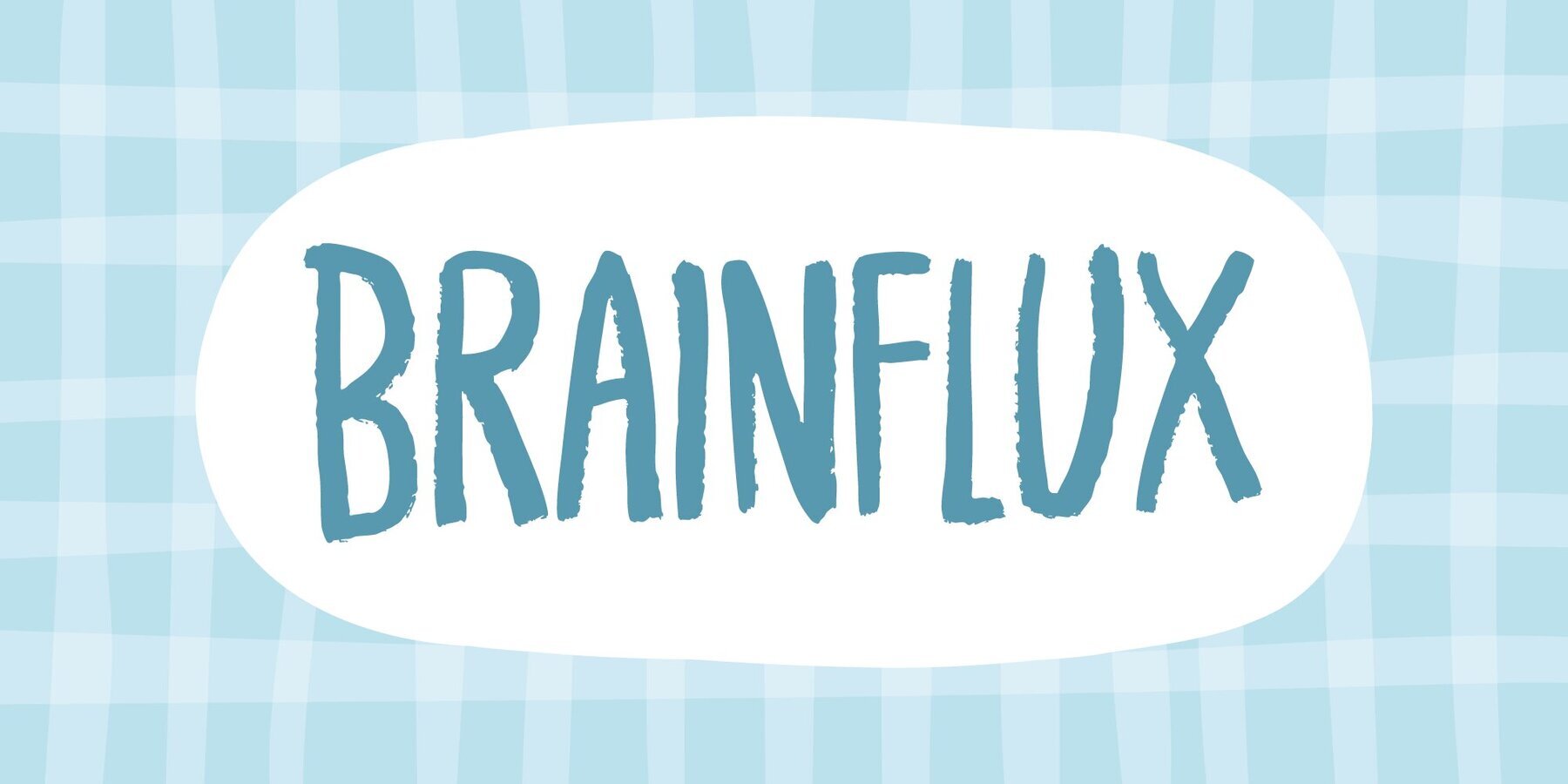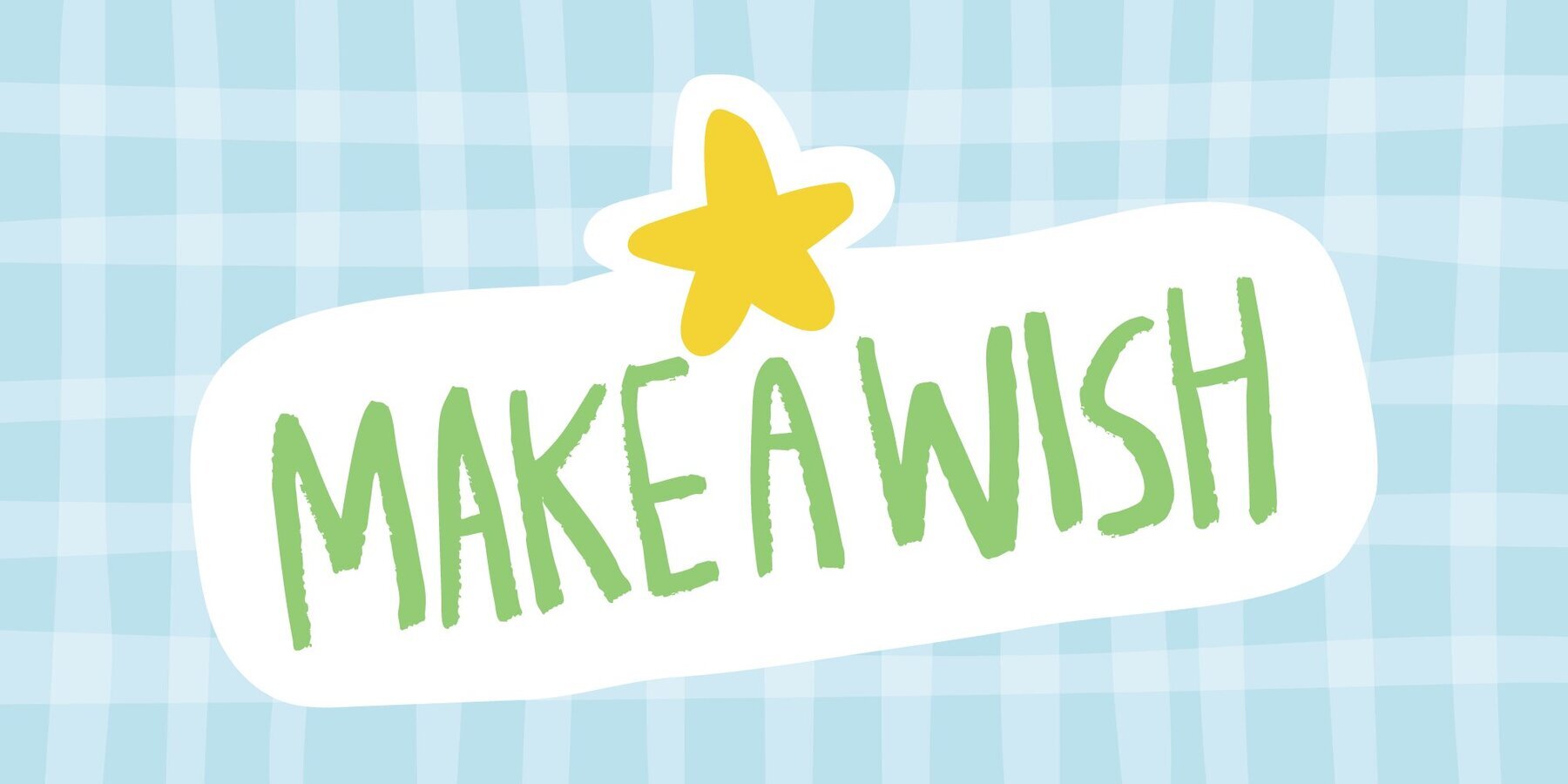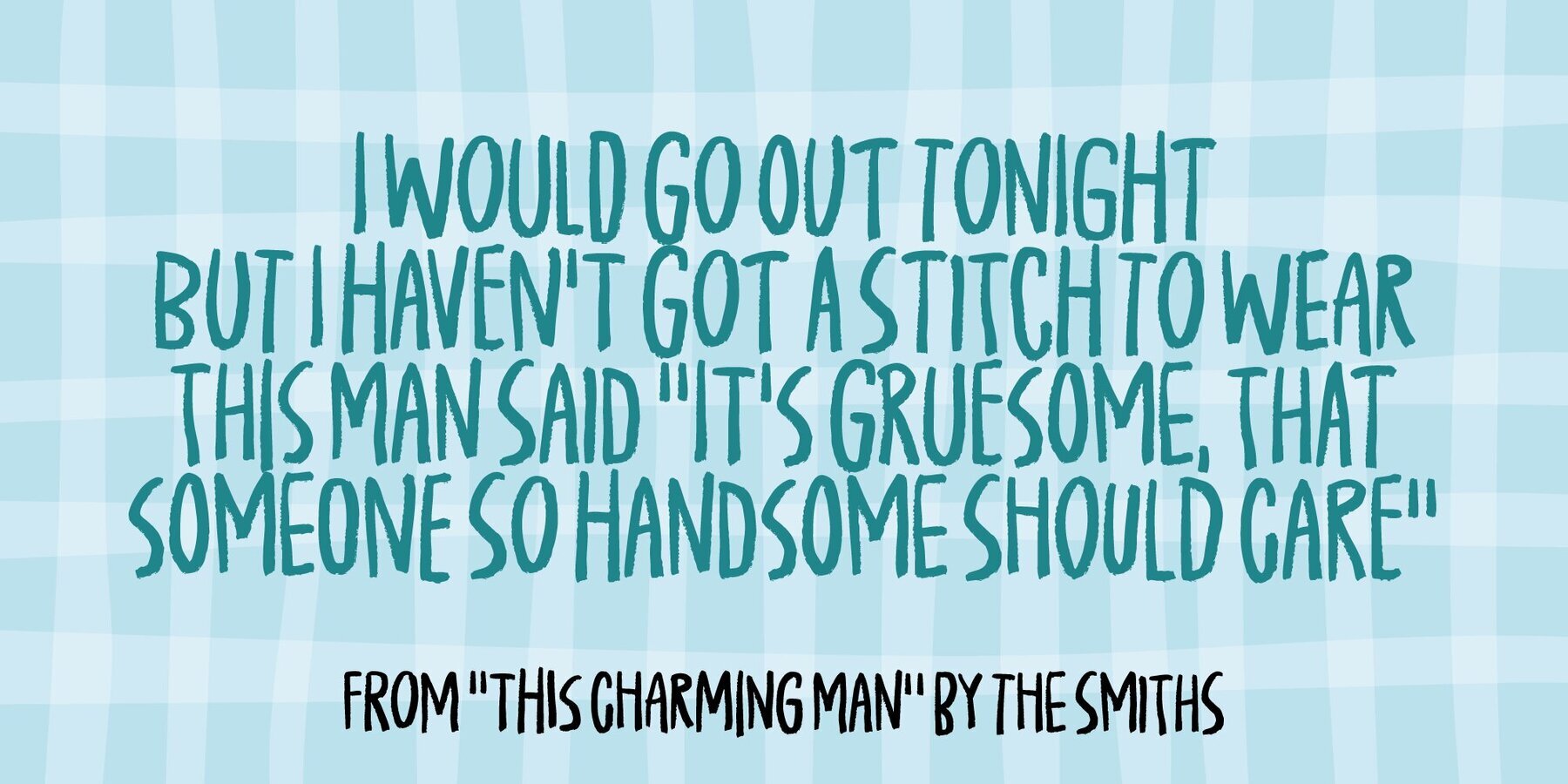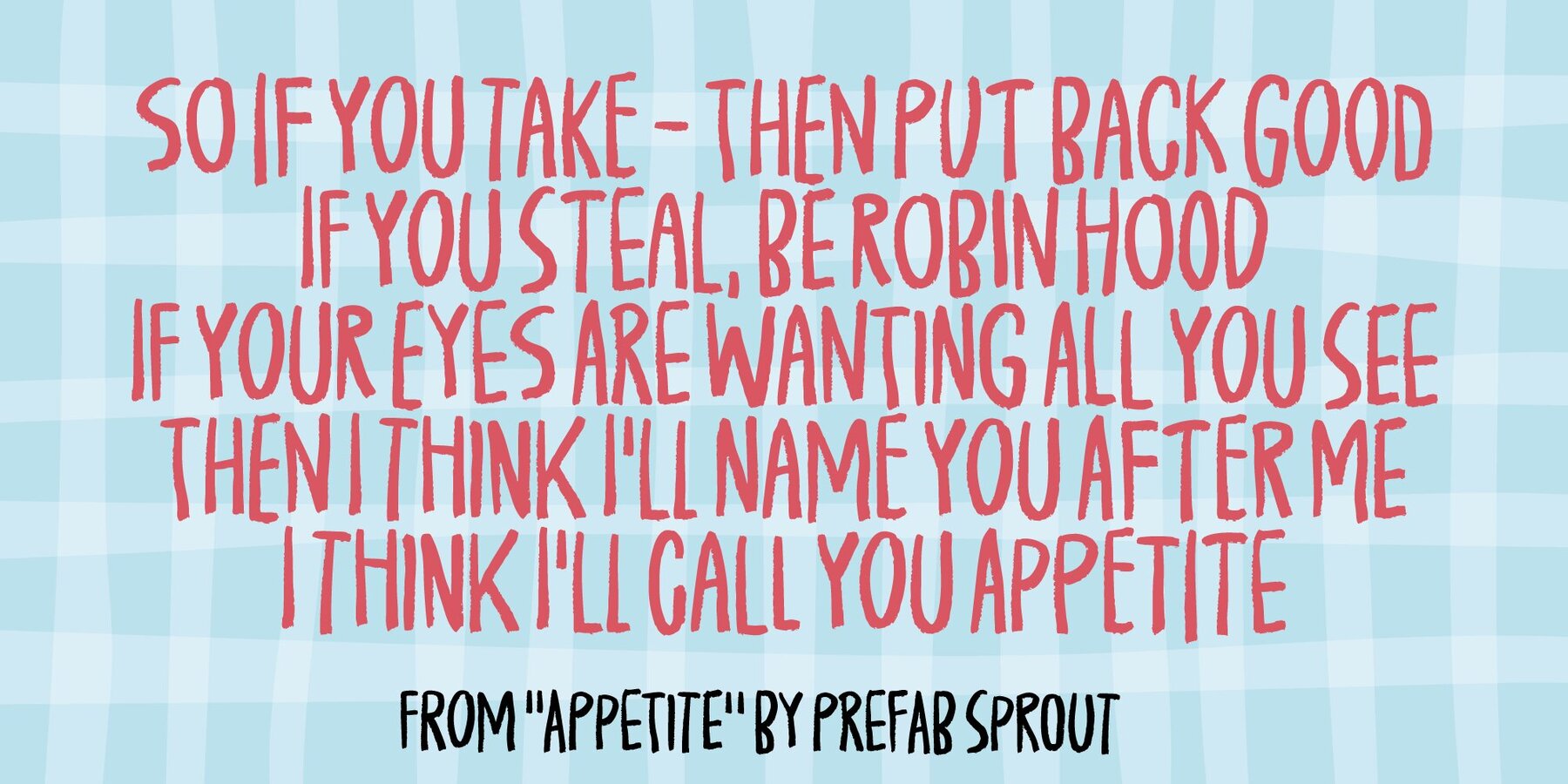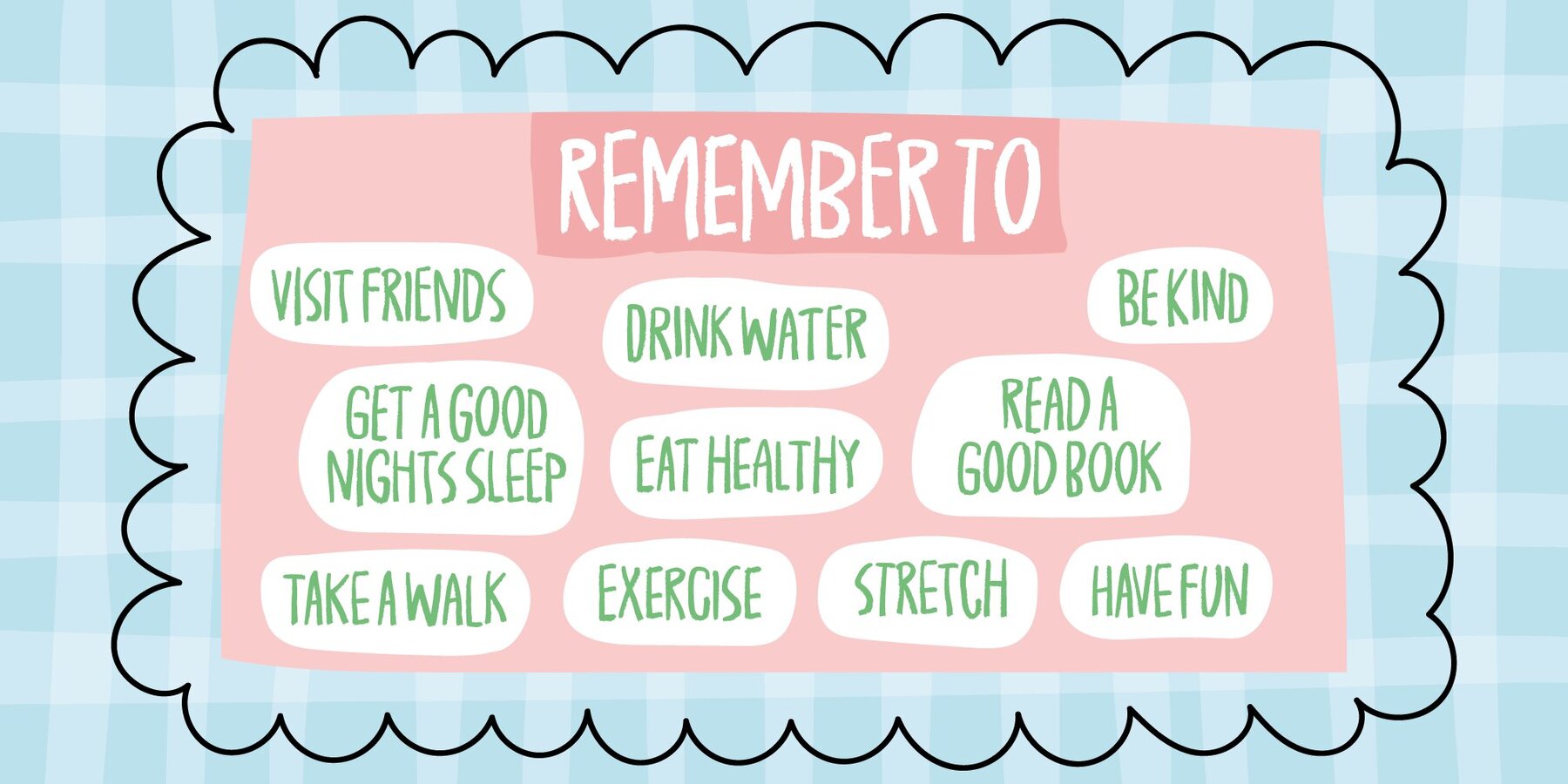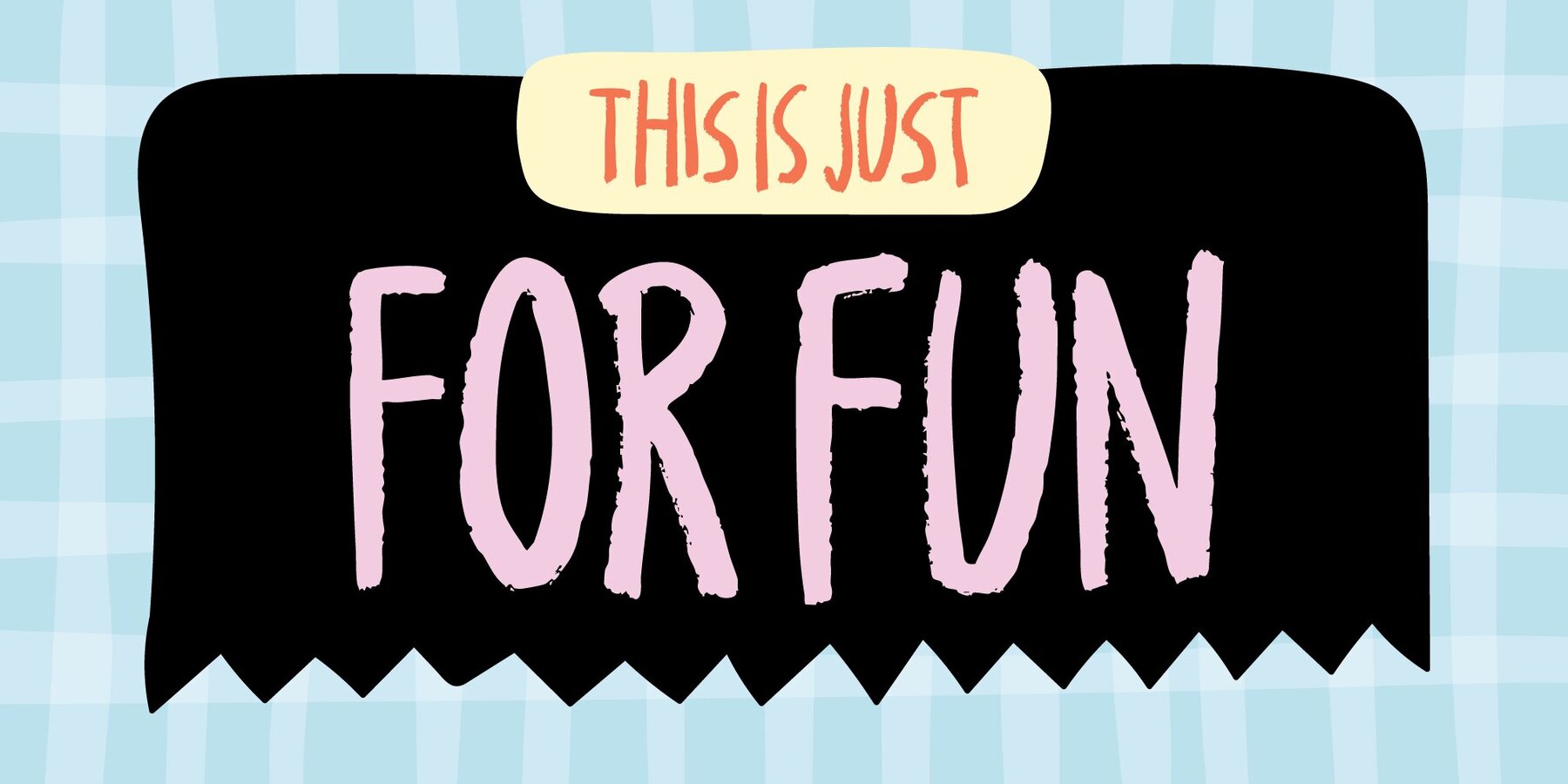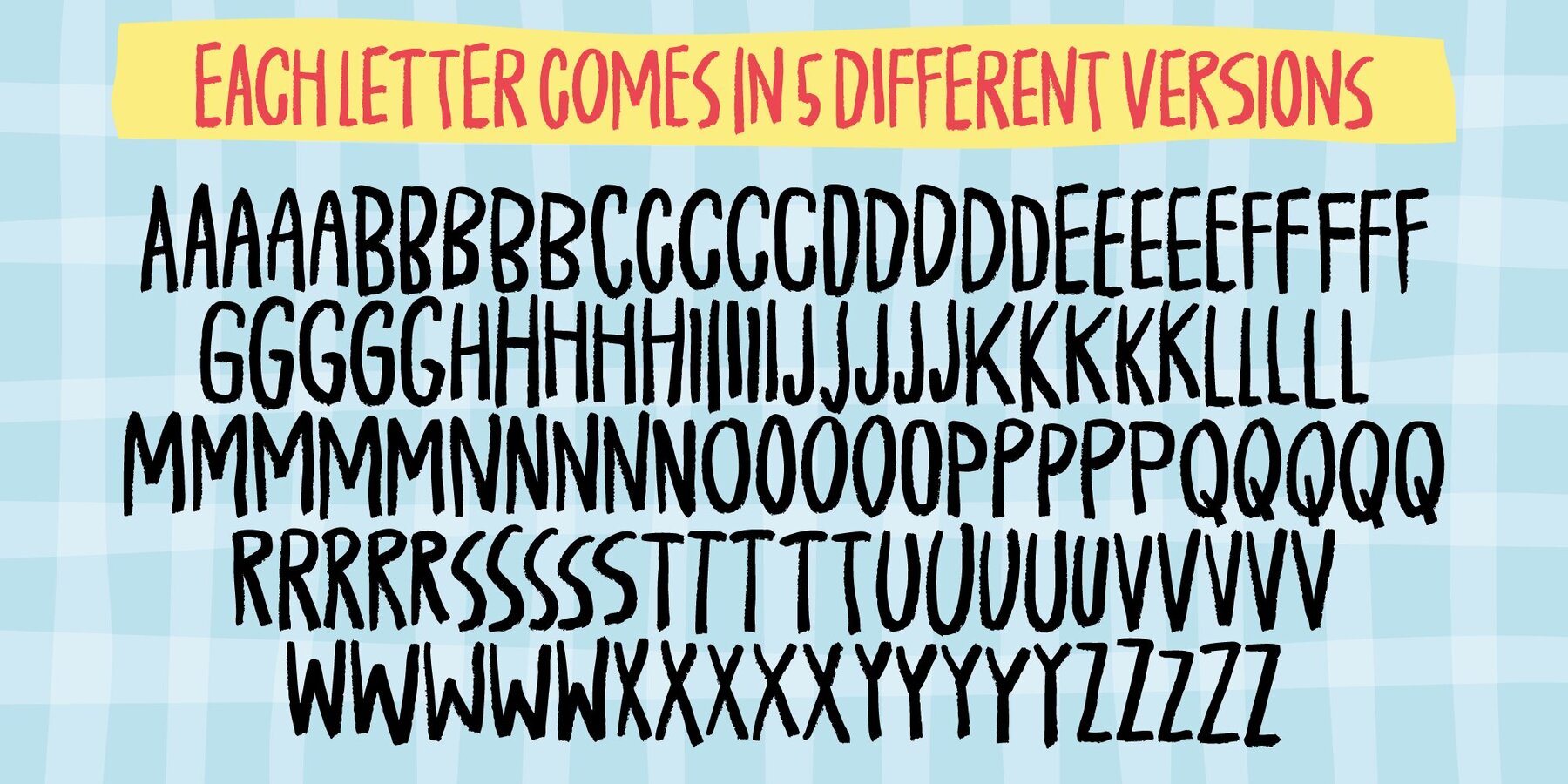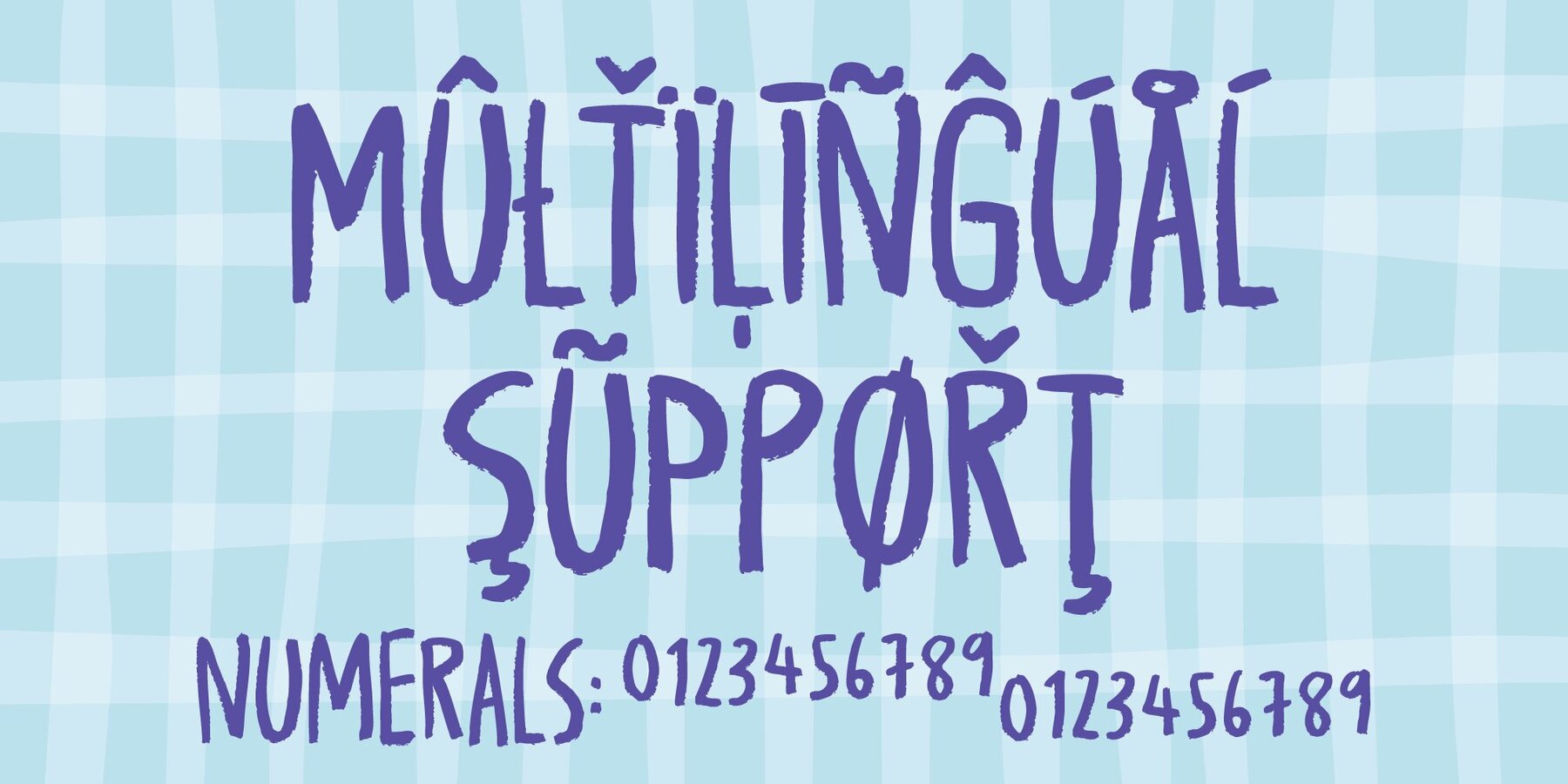
Brainflux Font
Brainflux Regular
Brainflux Italic
Brainflux, an audacious brush font, offers an unmistakable character despite its spontaneous and slightly unruly appearance. Capturing an essence of candor, this font leaves a profound mark in its playfulness and vigor. Ideal for extensive text blocks, Brainflux conveys a steady forward motion, akin to a train on a relentless journey.Brainflux: An Expressive Brush Font